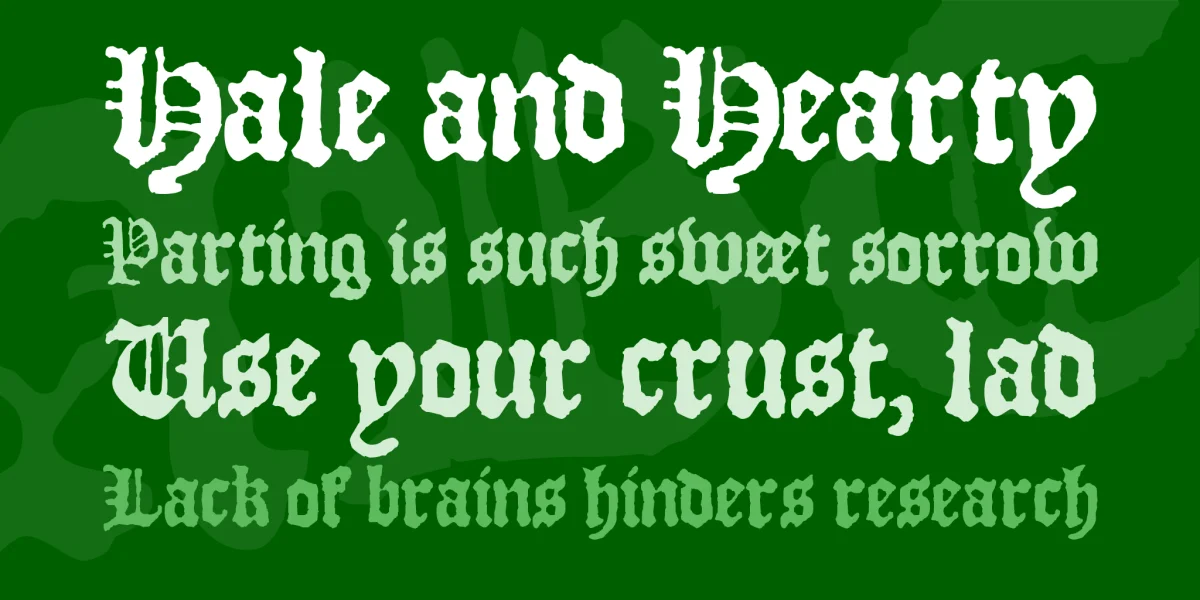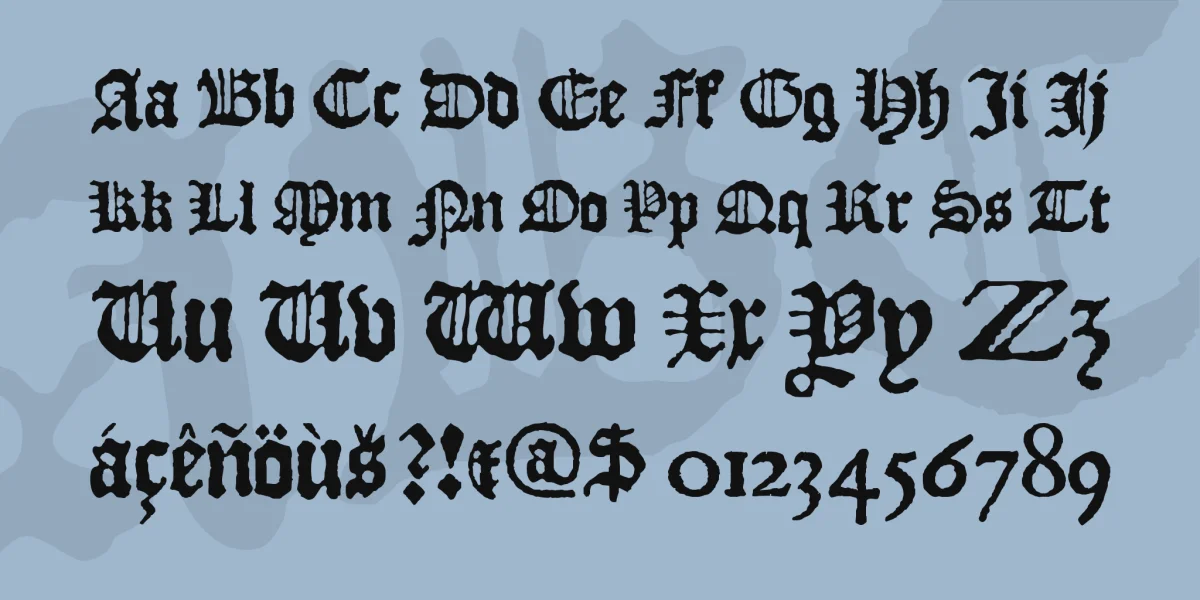
The "JSL Blackletter" font is based upon a typeface created by William Bullokar, for his "Booke at large, for the amendment of orthographie for English speech", published in 1580 by Henrie Denham. In this book, Bullokar attempted to regularise the spelling of English by adding some letters to the English alphabet (mostly combinations of two letters, such as "sh" or "ph"), and by using accents to mark the pronunciation of vowels.
He also provided several example typefaces, including the blackletter alphabet which is the basis for this font. His new letters have been removed, as I originally designed this font for the purpose of reproducing some blackletter broadside ballads which used the normal English orthography of the period. (Obviously, his idea was met with the same enthusiasm that was shown to the Metric System by the United States...)